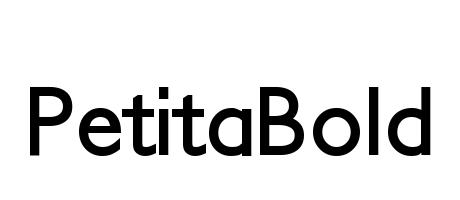
PetitaBold
PetitaBold: A font that whispers confidence. Its sturdy, yet subtly elegant forms exude a quiet strength. Perfectly balanced between modern minimalism and classic readability, PetitaBold commands attention without shouting. Ideal for headlines that demand presence, and body text that needs to be seen.